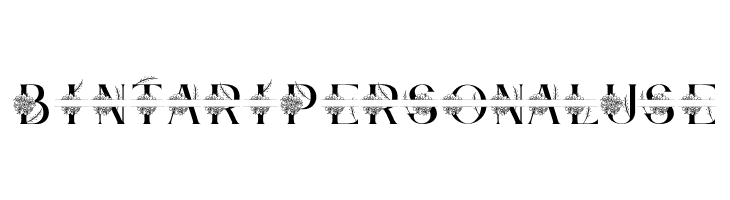
( Fonts by SDFonts - Ritzy )
A bold, Gothic-style font with dramatic, ornate characters.
( Fonts by Dave Kellam - Brian Stuparyk - www.eightface.com )
A distressed, eroded font with a rugged, vintage aesthetic.
( Fonts by Rikyozone )
A bold, industrial-style font with a mechanical, stencil-like design.
A bold, graffiti-inspired font with jagged edges and dynamic shapes.
A bold, geometric font with filled patterns and a modern, decorative style.
A bold, decorative font with circuit-like patterns and a modern, technological feel.
A bold, decorative font with a punk-inspired cross pattern.
A decorative font with a cross-stitch embroidery style.
( Fonts by Southype )
A bold, geometric font with a cracked stone pattern, offering a modern and edgy look.
( Fonts by Paul Lloyd )
A bold, outlined serif font with a classic and striking appearance.
( Fonts by Alfareaniy )
A playful, grapevine-themed decorative font with bold, rounded characters.
( Fonts by Antonio Bucu - AdamAnt Designs )
A bold, grunge-style font with a sketchy, graffiti-inspired look.
( Fonts by Dieter Schumacher )
A bold, gothic-style font with sharp, intricate details.
( Fonts by Levi Halmos )
A bold, jagged font with a distressed, horror-themed style.
( Fonts by Peter Stanton )
A distressed, textured font with a rugged, vintage aesthetic.
( Fonts by AEnigma - www.aenigmafonts.com )
A bold, rounded, and modern font with a playful and approachable style.
( Fonts by AEnigma - www.aenigmafonts.com )
A bold, segmented font with a futuristic and digital aesthetic.
( Fonts by Des Gomez )
A playful, whimsical handwritten font with artistic, freeform strokes.
( Fonts by Rich Gast - www.greywolfwebworks.com 商业 字体 )
A bold, rounded font with a playful and modern design.
( Fonts by Maelle.K | Thomas Boucherie )
A playful, bold font with characters enclosed in rounded black shapes, ideal for creative projects.
( Fonts by www.aenigmafonts.com )
A geometric, diamond-enclosed font with bold, angular lines.
( Fonts by Vunira Design )
A playful, decorative font with bold letters and floral embellishments.
( Fonts by Vunira Design )
A bold, decorative font with floral embellishments on uppercase letters.
A playful and eclectic font with unique, artistic letter designs.